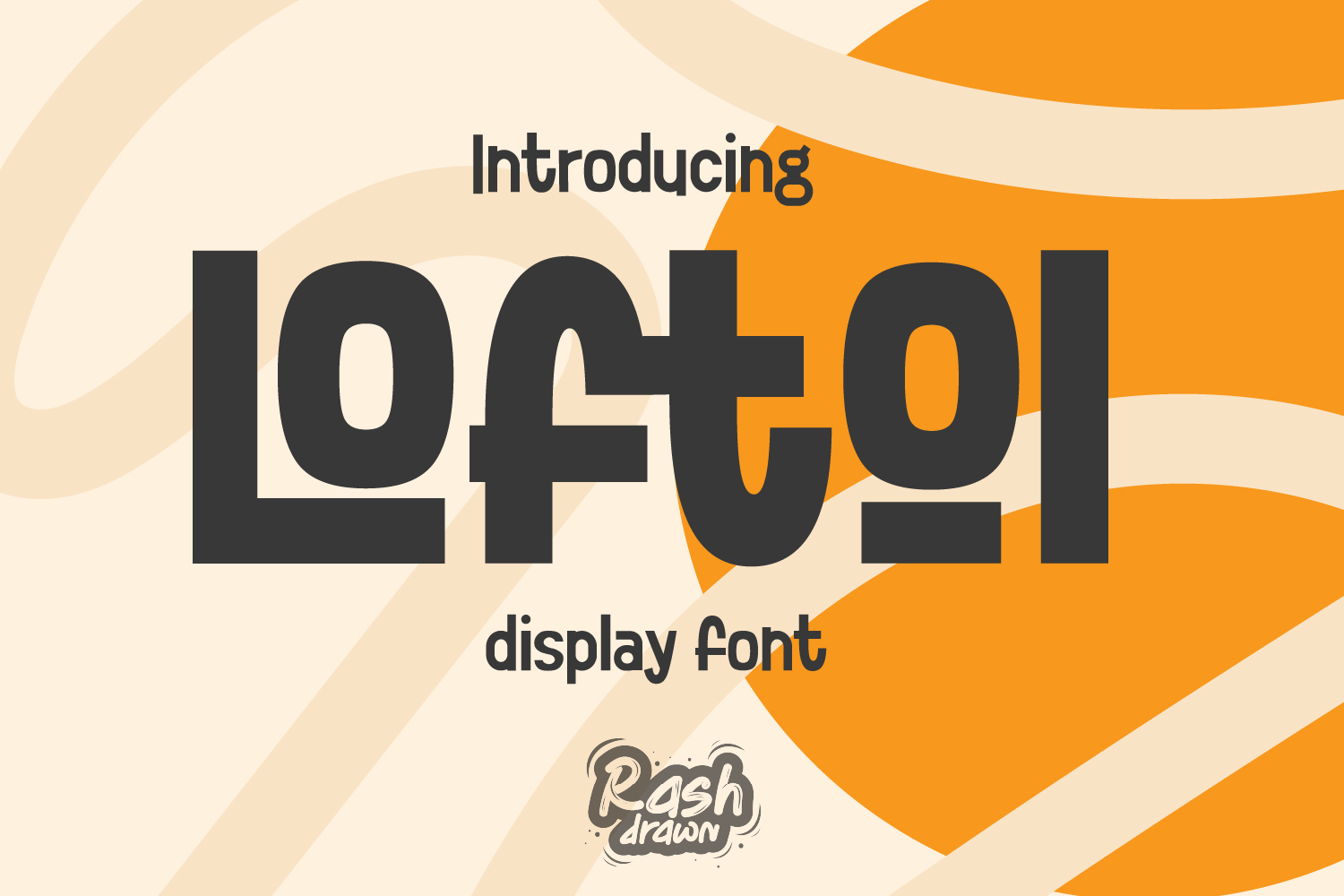
Lofto
Loftol
Introducing "Loftol", a modern display typeface take on a thick line style, "Loftol" font have unique shape on selective characters, that's sure make your design stand out. Use "Loftol" for most any aspect of graphic design, from logo to display designs